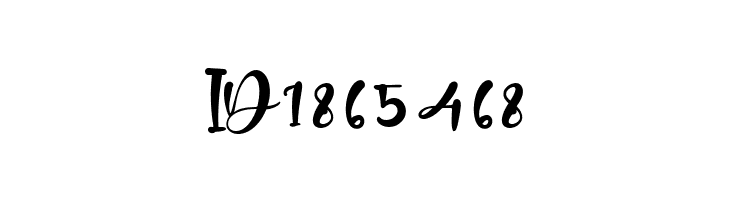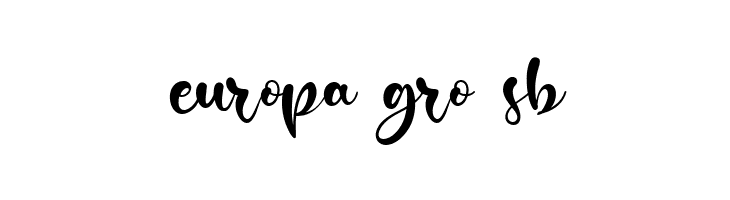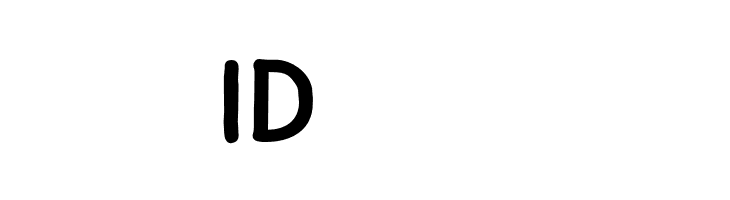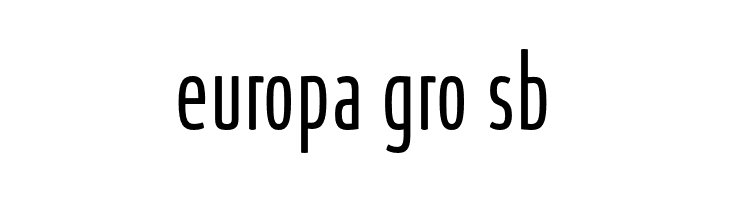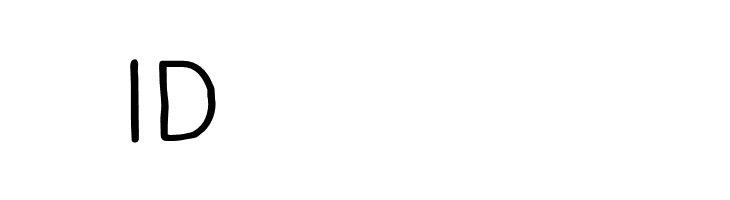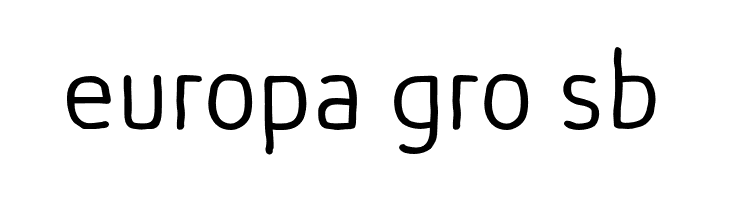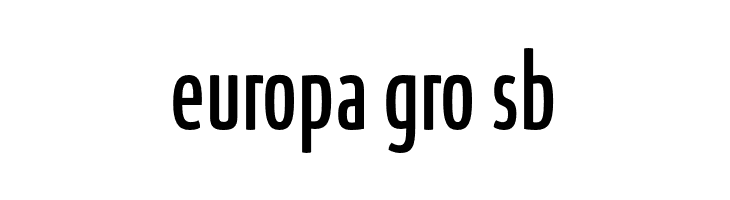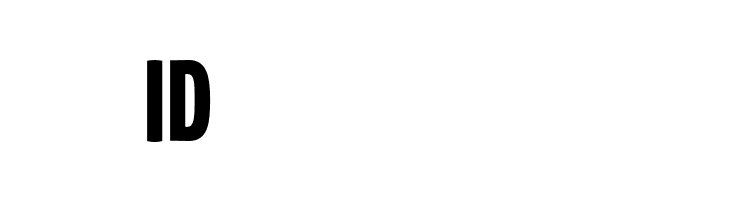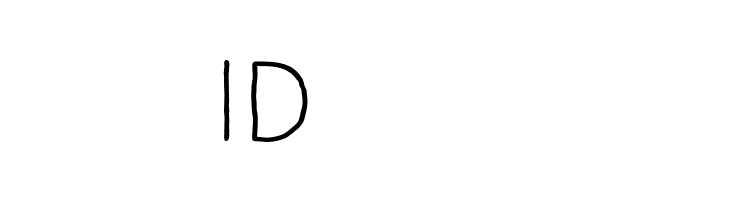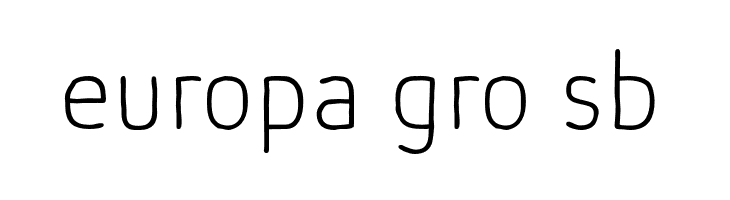
A hand-drawn, sketch-style font with an artistic and informal appearance.
A playful, hand-drawn font with rounded edges and consistent stroke width.
A hand-drawn, sketch-like font with thin, irregular strokes for a casual, artistic feel.
A playful and elegant cursive font with a handwritten feel.
A lively and expressive script font with elegant, flowing cursive letters.
A bold, ultra-condensed font with a modern and impactful style.
A modern, ultra-condensed sans-serif font with tight spacing and uniform strokes.
A sleek, ultra-condensed font with a modern, minimalist design.
A bold, ultra-condensed font with high contrast and a modern, geometric style.
A sleek, ultra-condensed, and thin font with a modern aesthetic.